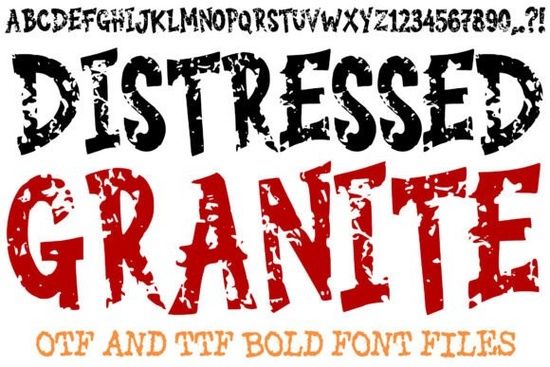
If you are looking to add a raw, weathered look to your next project, the Distressed Granite Font is a highly effective choice for designers and crafters. This heavy display typeface mimics the natural fissures and dark stone texture of ancient rock, giving your text a rugged, carved-from-stone appearance right out of the box. It is especially useful for print-on-demand sellers creating urban streetwear, small business owners branding an industrial workshop, or anyone needing a solid, unshakeable foundation for their text. Instead of spending hours manually applying grunge overlays in your design software, this typeface provides an authentic, elemental energy instantly.
What makes this stone texture font different from other distressed styles?
Unlike standard grunge fonts that simply apply a basic noise filter over clean letterforms, this typeface features hand-drawn characters filled with high-contrast, intricate patterns. The edges are sharply jagged, creating a broken, weathered silhouette that looks genuinely chipped and aged. Every character is filled with a unique distressed pattern that resembles cracked obsidian or natural granite. Because the letterforms are exceptionally thick and blocky, your message stays highly legible even when placed over busy, complex, or dark backgrounds. This balance of ancient mystery and modern grit makes it stand out in a crowded market.
What types of projects work best with this heavy display typeface?
The versatile aesthetic of this font allows it to transition smoothly between ancient ruin themes and modern industrial vibes. Here are a few practical ways to apply it to your creative work:
- Heavy metal band posters: The aggressive, sharp outlines match the intense, raw energy of the music genre perfectly.
- Dark fantasy book covers: The elemental, mysterious stone texture fits seamlessly with epic storytelling and world-building.
- Epic gaming interfaces: The bold, high-impact letters stand out clearly on digital screens and UI elements.
- Urban street-style apparel: Add a gritty, edgy feel to t-shirt graphics, hoodies, and skateboarding merchandise.
- Edgy social media graphics: Grab attention in a fast-scrolling feed with text that looks physically carved into rock.
How does it pair with other decorative fonts?